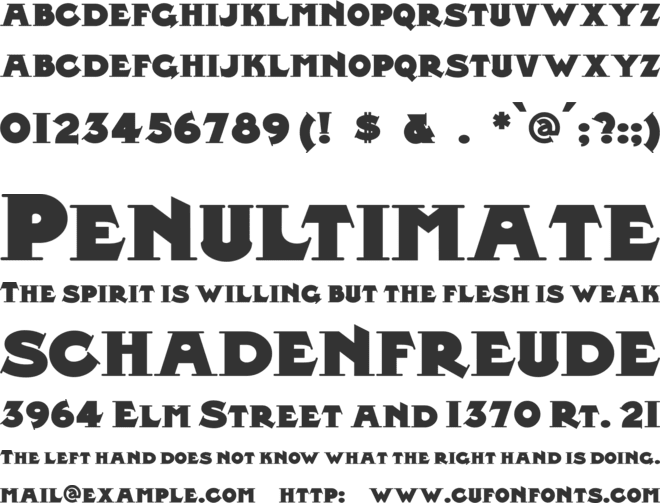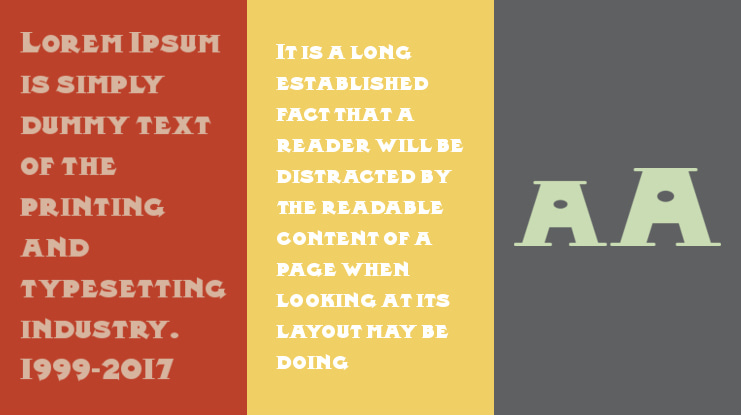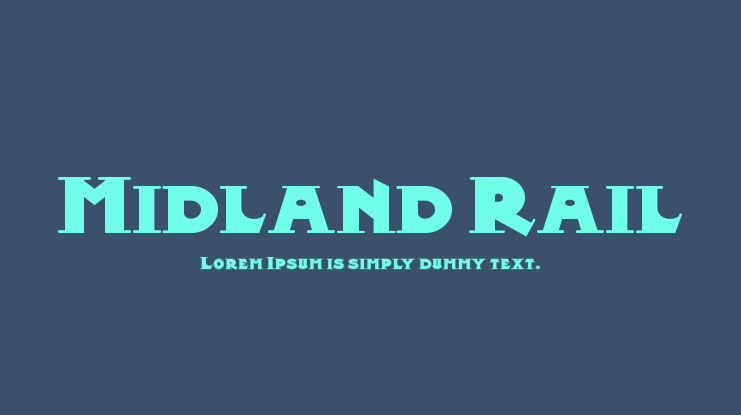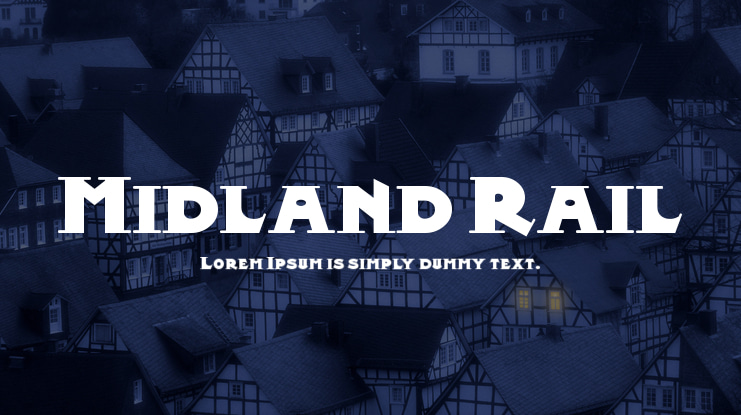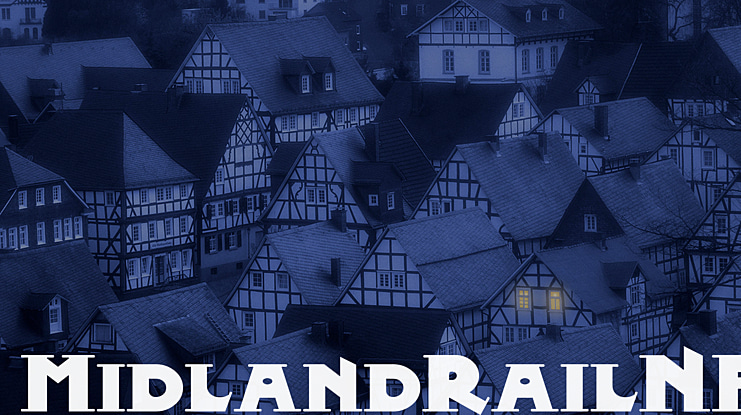
Midland Rail Font
This amusing face was inspired by lettering on a circa 1910 poster for a British railroad company. I wish I could credit the original designer but, alas, the info was unavailable.